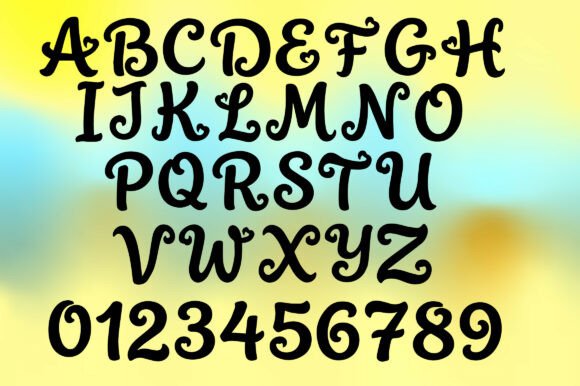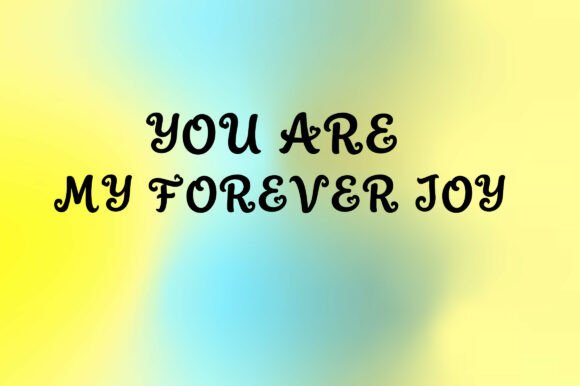
Introduction to Love Rises Daily Font
As a designer, there’s nothing quite like the rush of finding the perfect font for a creative project. It’s the moment when all the elements come together, and your design starts to feel truly alive. For me, that moment happened when I stumbled upon the enchanting Love Rises Daily Font. Its whimsical charm and bold romantic style immediately captured my heart, and I knew I had to learn more.
With its soft curves, thick strokes, and lovely heart-shaped swirls, Love Rises Daily Font is a high-quality design resource that adds a warm and memorable touch to any project. Whether you’re working on a wedding design, invitation, or social media graphic, this font is sure to make your work stand out. And the best part? It’s available for free download, making it a valuable resource for designers of all levels.
- High-quality, vector-based design for crisp and clear rendering, making it ideal for a variety of creative projects.
- Unique, hand-drawn design with a transparent background, perfect for designers looking to add a personal touch to their work.
- Supports a wide range of languages, making it a versatile design resource for projects of all types.
- Perfect for use in digital design, including social media graphics, blog posts, and other online content.
Honest Review: Love Rises Daily Font
I recently had the chance to work with the Love Rises Daily Font, and I must say it’s been a game-changer for my creative project. This font is a high-quality design resource that offers a unique and beautiful touch to any design.
What works well about the Love Rises Daily Font is its versatility and ease of use. It’s a free download, which is always a bonus, and it’s available in a variety of formats, including transparent background, making it easy to integrate into any design.
Here are some of the key features that I loved about the font:
- ✨ Beautiful and elegant design
- ✨ High-quality vector graphics
- ✨ Transparent background for seamless integration
- ⚠️ Limited character set, which may not be suitable for longer texts
- ⚠️ Not as versatile as some other fonts, may not work well in certain contexts
Overall, I’m impressed with the Love Rises Daily Font and would highly recommend it for any creative project. Its unique design and high-quality graphics make it a valuable addition to any design arsenal.
The Love Rises Daily Font is ideal for creating eye-catching titles, headings, and quotes for your design project. Its transparent background and high-quality design make it perfect for use on images, logos, and graphics. You can also use it to create a consistent brand identity across your marketing materials.
To get the most out of the Love Rises Daily Font, experiment with different font sizes, colors, and combinations to create unique and visually appealing designs. You can also pair it with other fonts to create a harmonious and professional-looking layout.